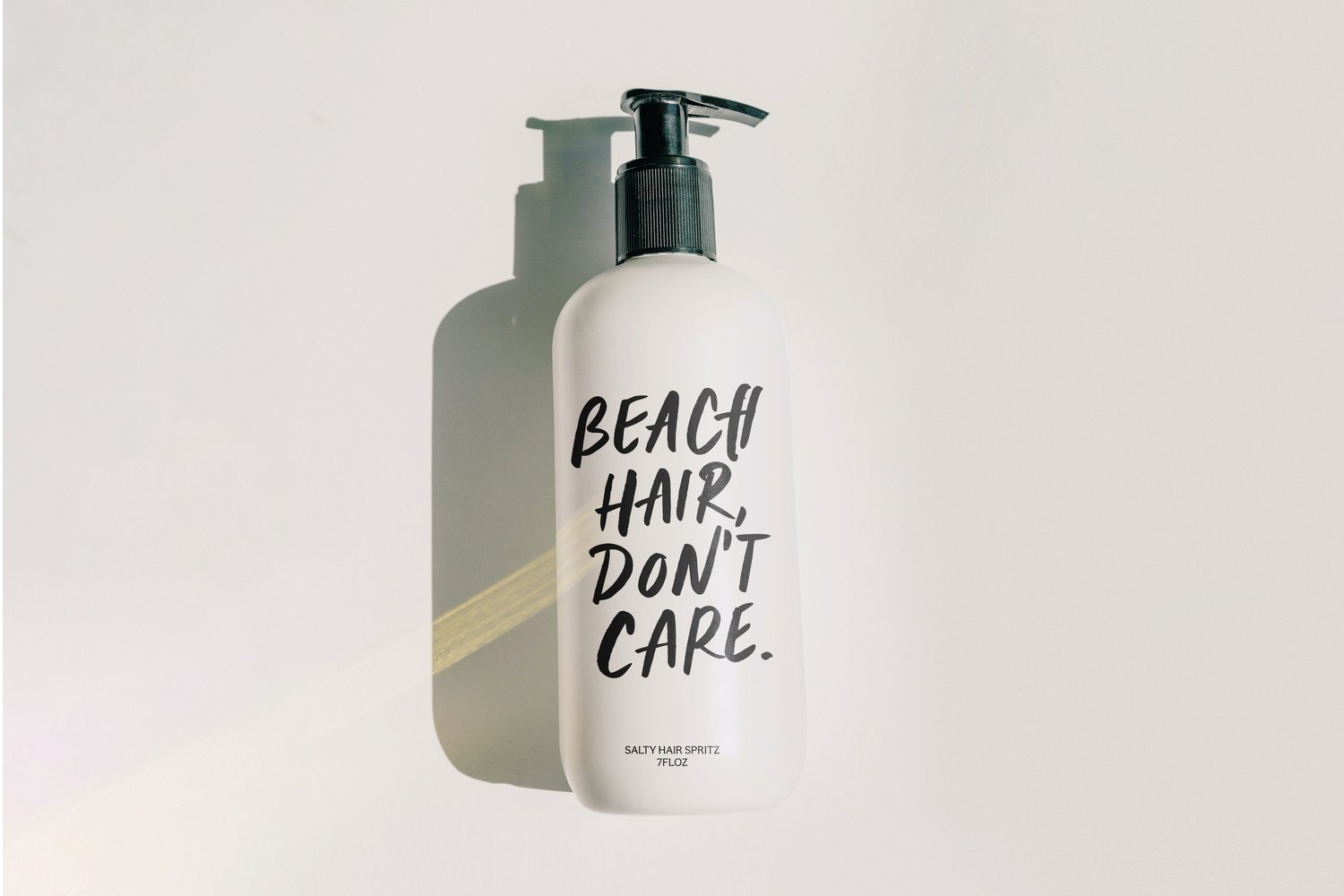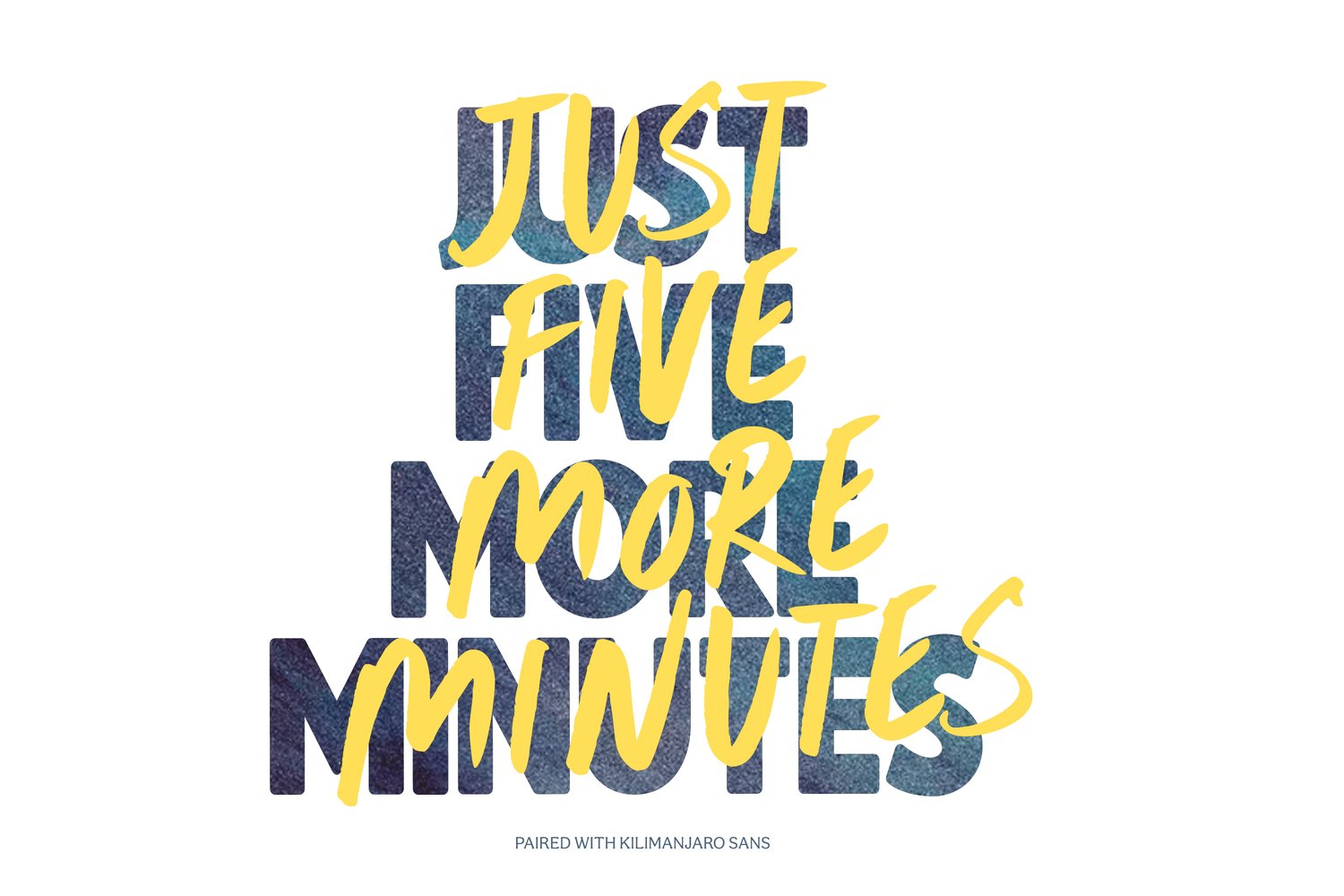
Island Break Brush Font
Island Break is a super casual all-caps brush font with differing all-caps characters in the uppercase and lowercase keystrokes.
Some lovely little ligatures are included to add to the font's natural look.
Great for anything needing a fresh, free-spirited hand-lettered look.